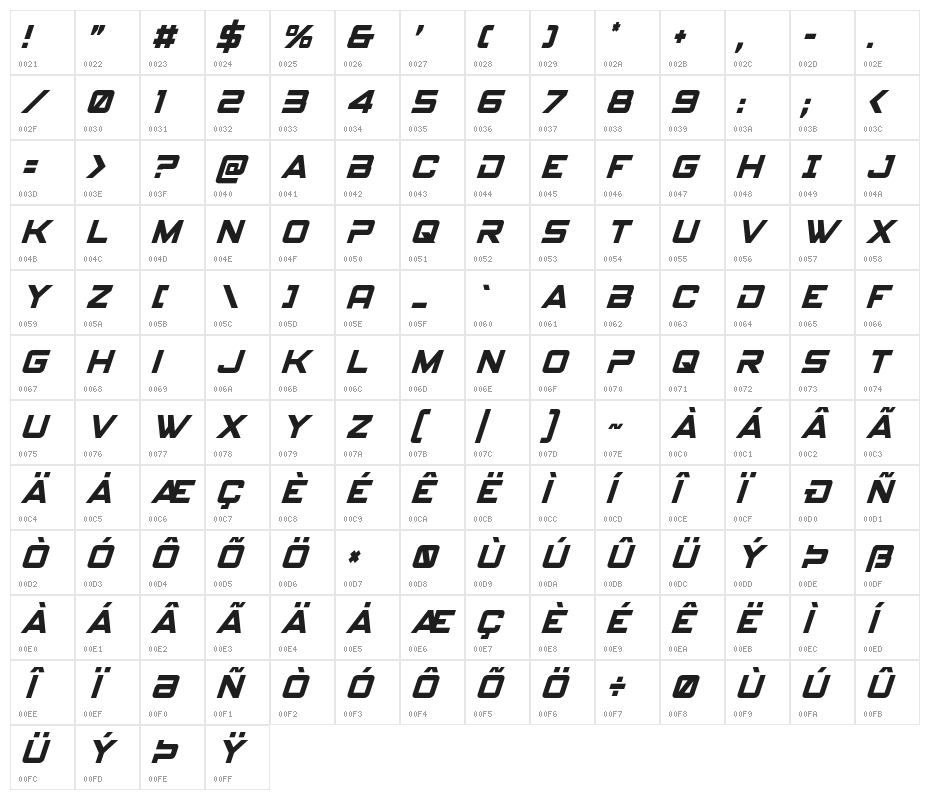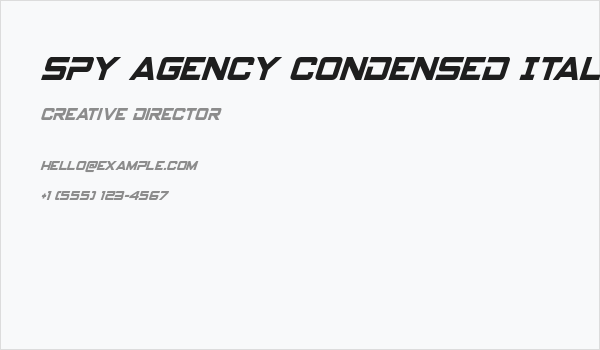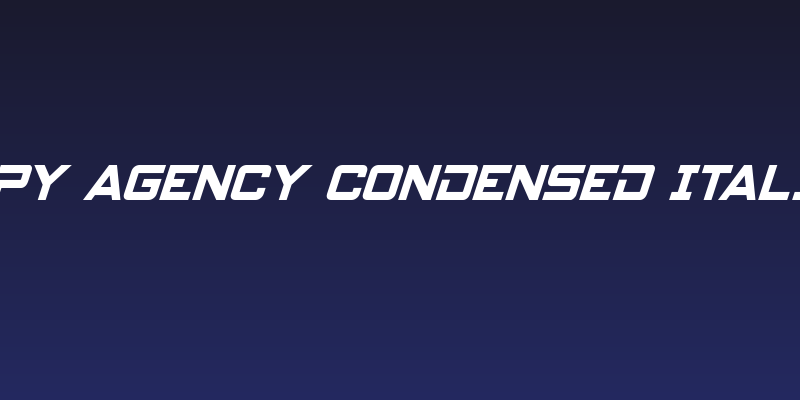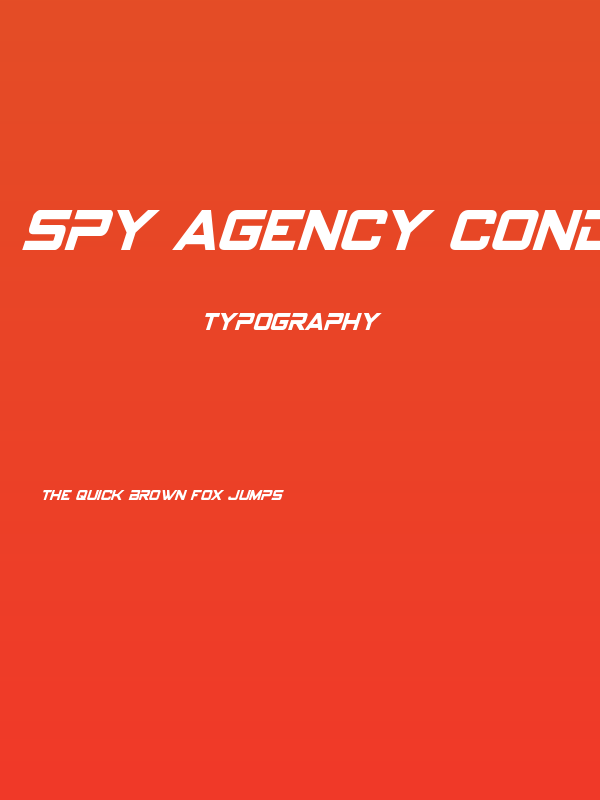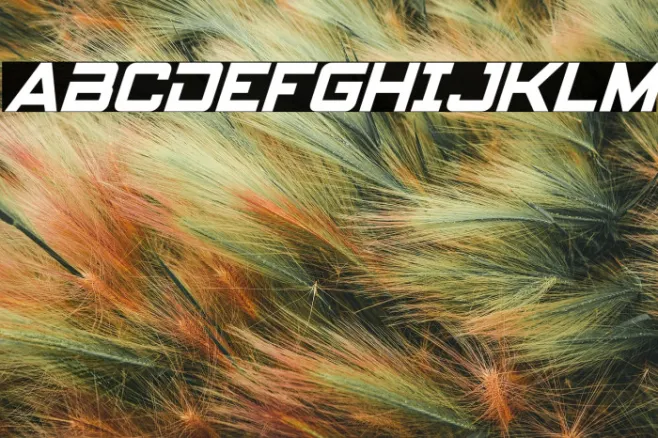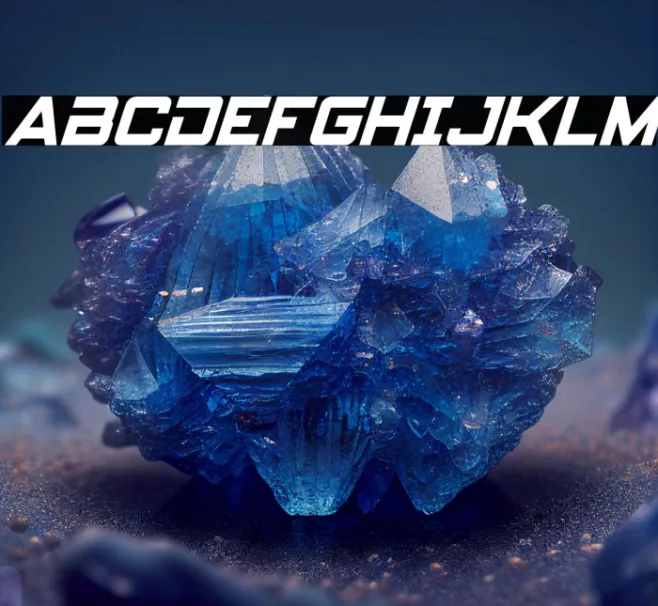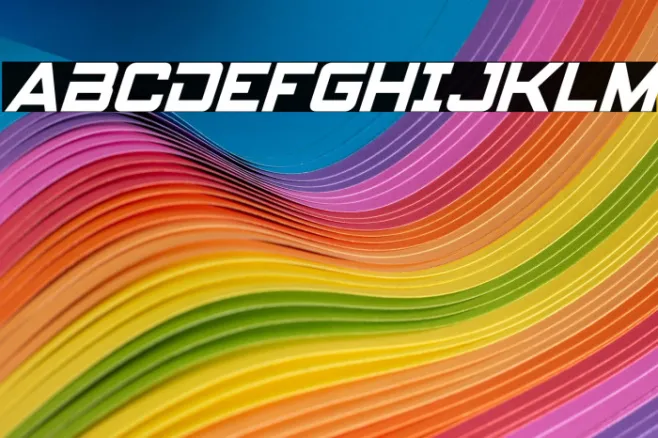
Spy Agency Condensed Italic Font
Spy Agency Condensed Italic Description
This font features a dynamic and modern design with a condensed and italicized style. The characters are sleek and angular, giving a sense of speed and efficiency. The uppercase and lowercase letters maintain a consistent slant, enhancing the italic effect. The numbers and special characters follow the same design principles, ensuring uniformity across all glyphs. The overall appearance is bold and assertive, making it suitable for projects that require a strong visual impact. The condensed width allows for efficient use of space, making it ideal for headlines and titles.
| Proposed Projects | Ideal for branding, advertising, sports team logos, and dynamic headlines. |